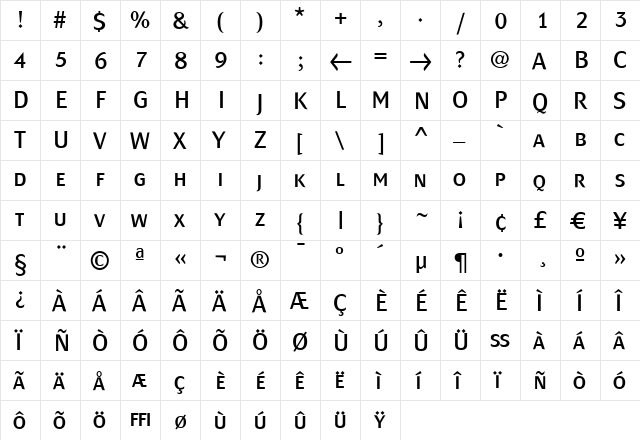
MondialPlus Normal Caps Regular Font Preview
MondialPlus Normal Caps Regular
MondialPlus Normal Caps Regular Font Details
Design Context for MondialPlus Normal Caps Typeface
MondialPlus Normal Caps is a composed and adaptable typeface that performs quietly and consistently across a wide range of design contexts.